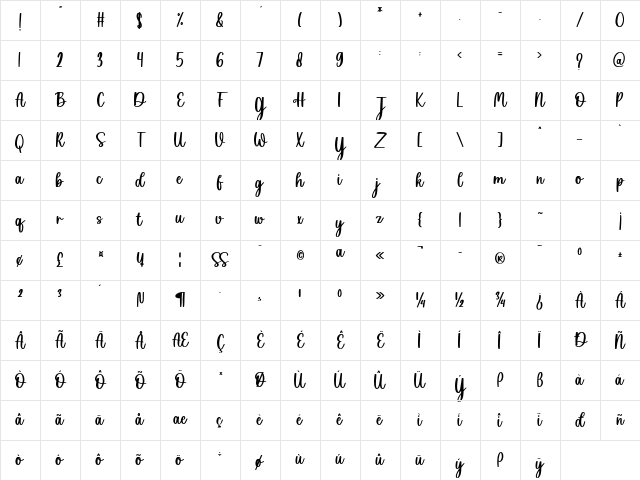
Sweet Holiday Regular
Designer: Muhamad Fikry Nuralif
Complete Sweet Holiday Regular glyph index. Displaying only characters natively supported by Sweet Holiday Regular font.
Design Context for Sweet Holiday
Sweet Holiday is a composed and adaptable typeface that performs quietly and consistently across a wide range of design contexts.